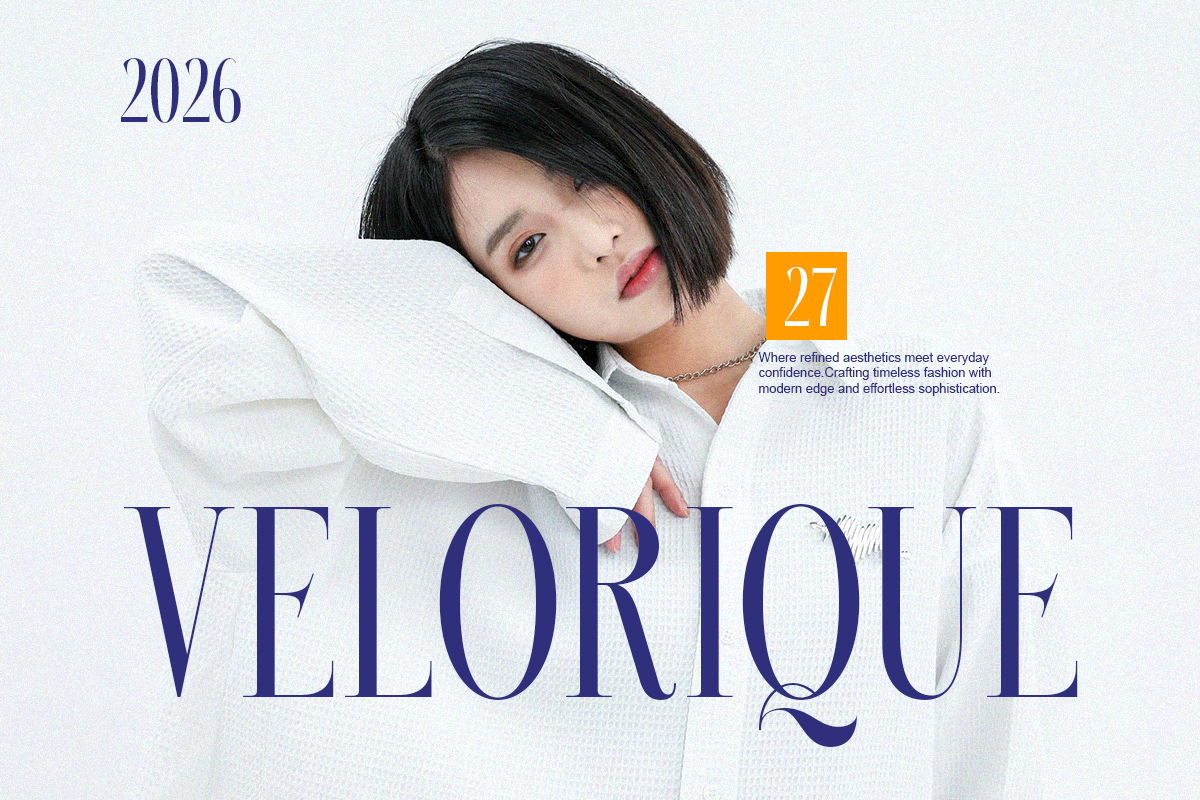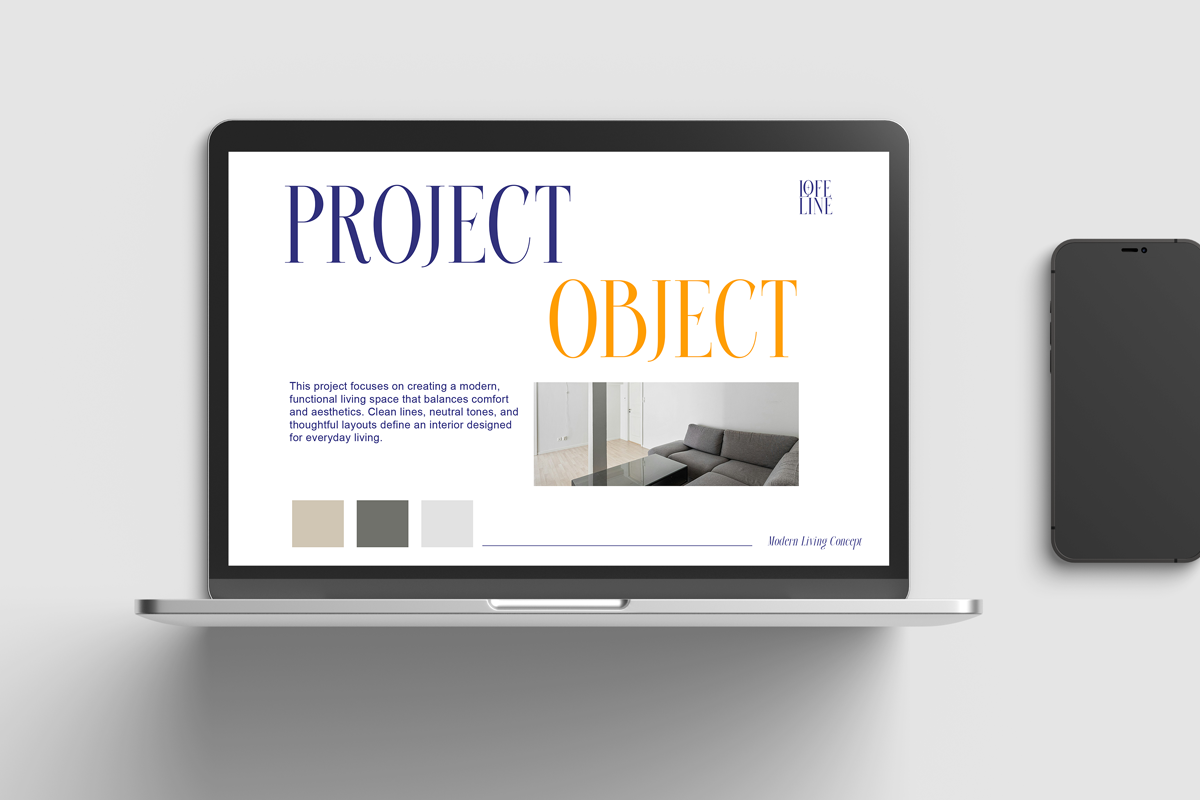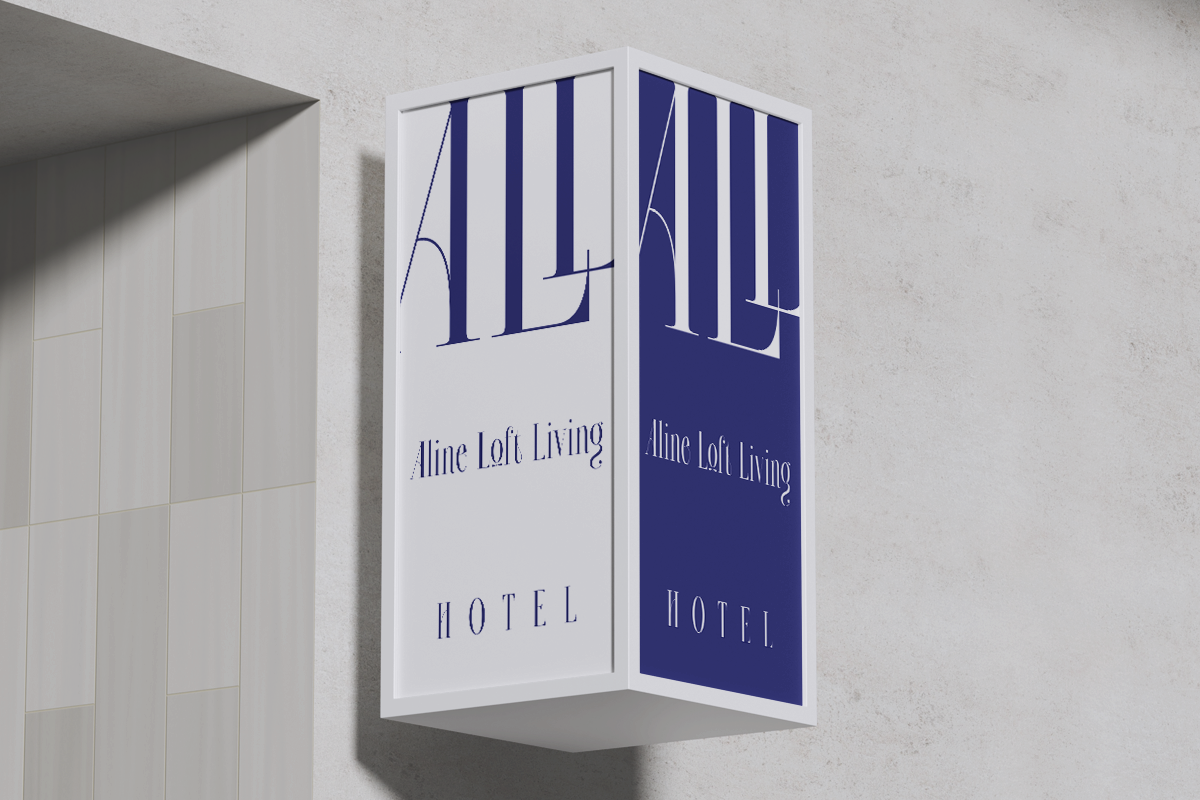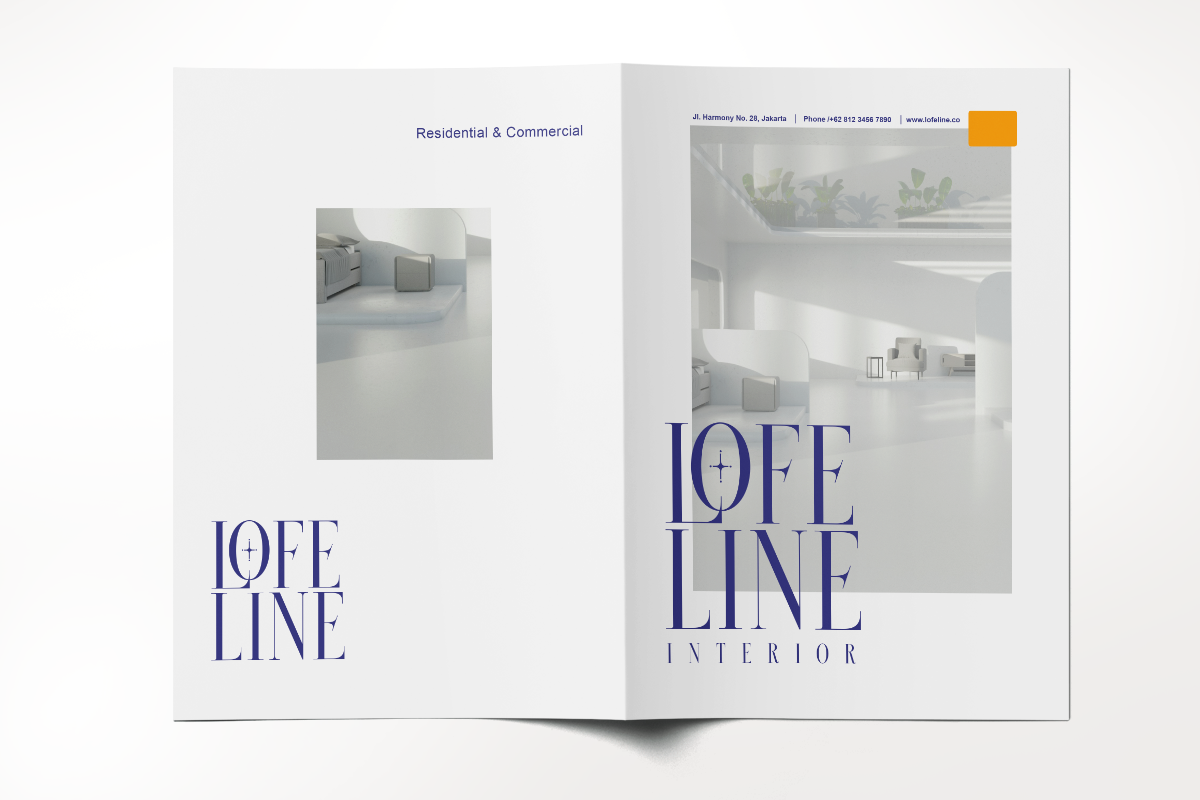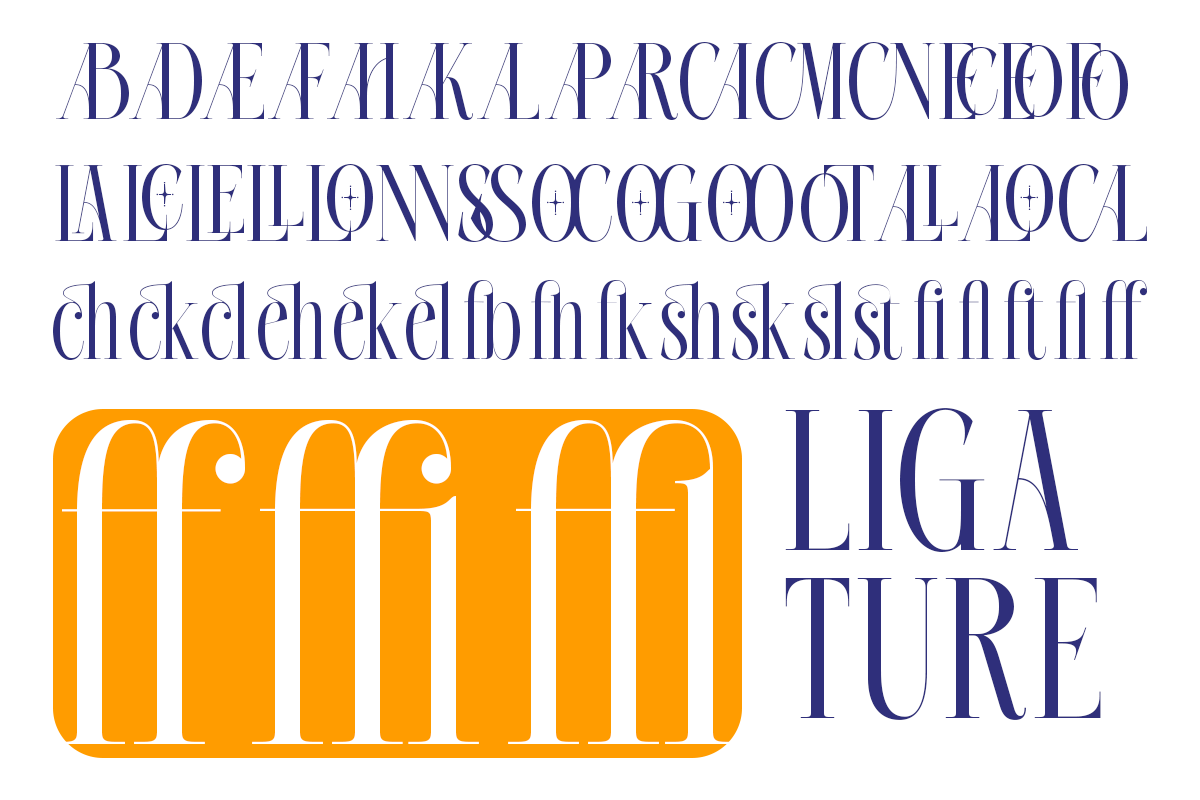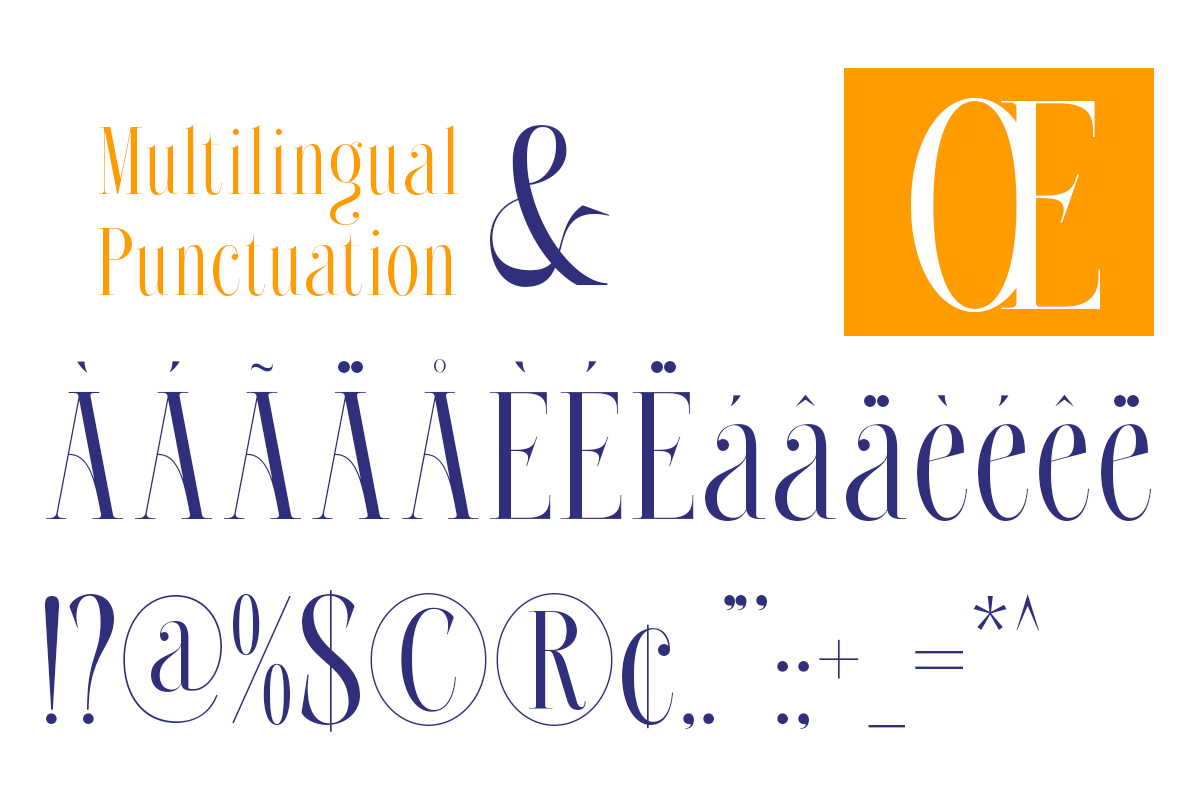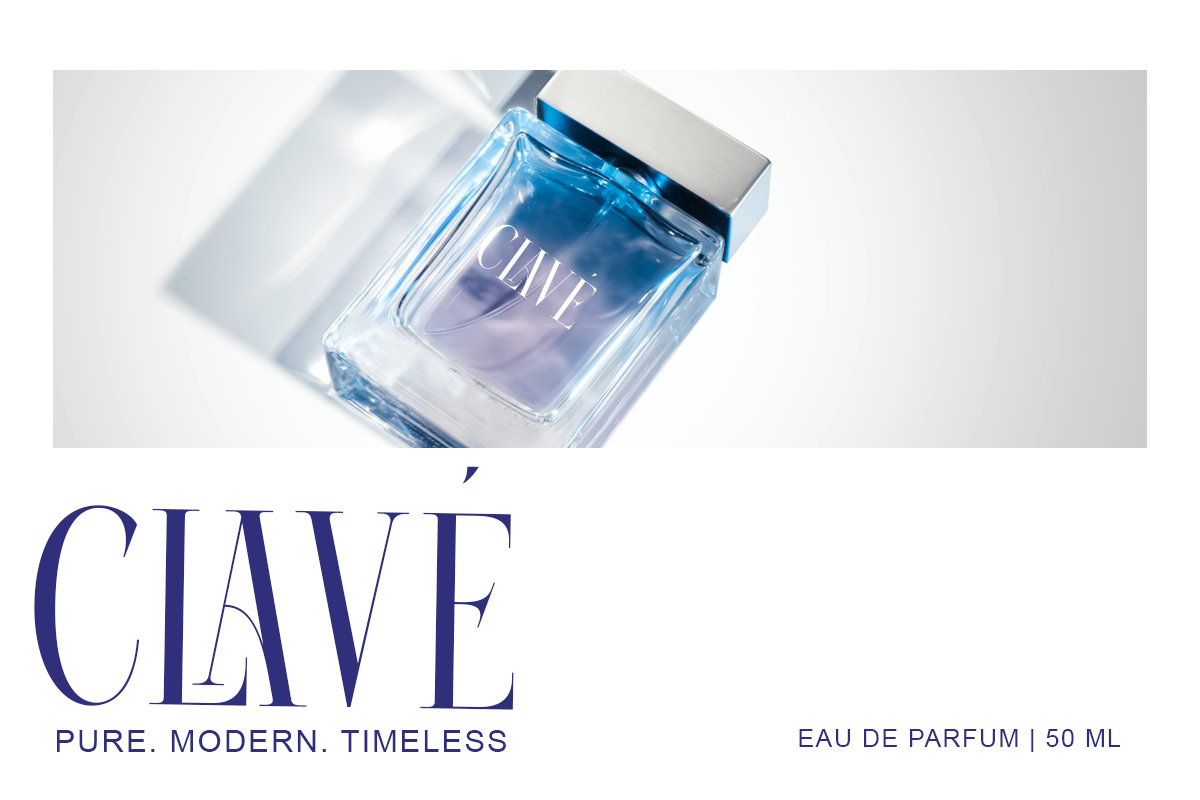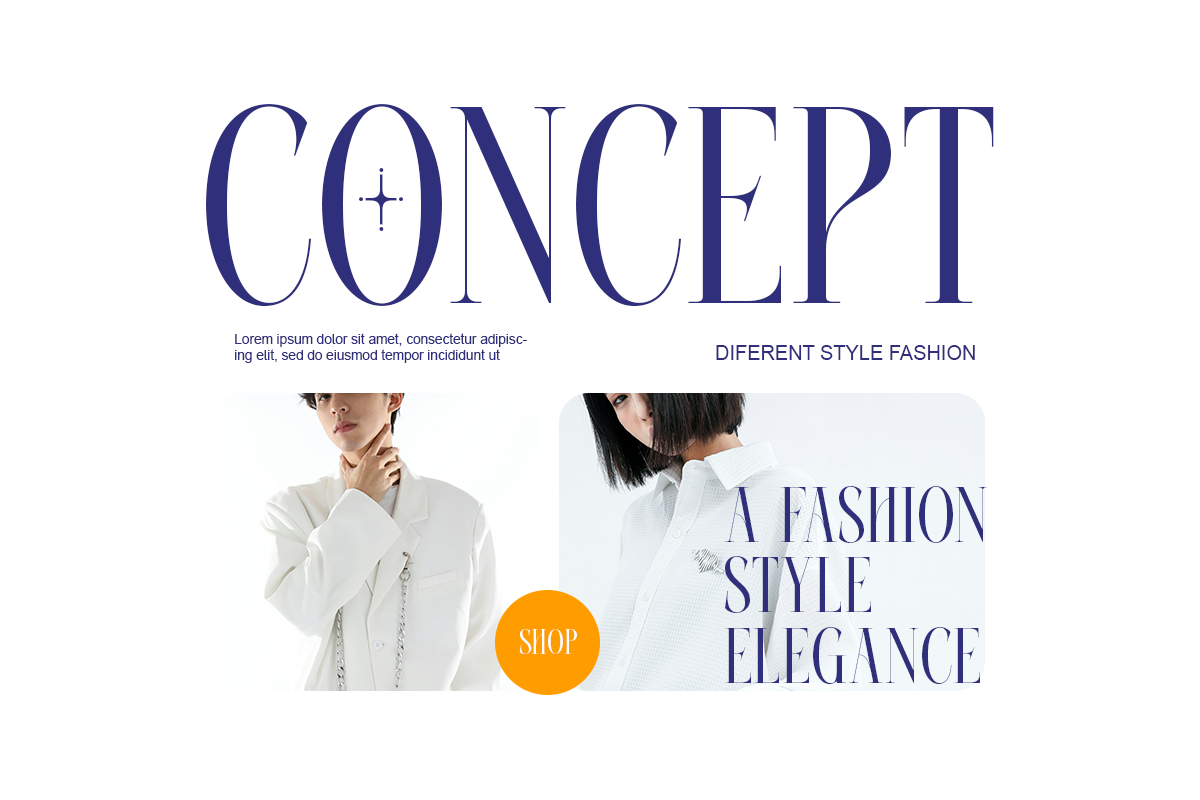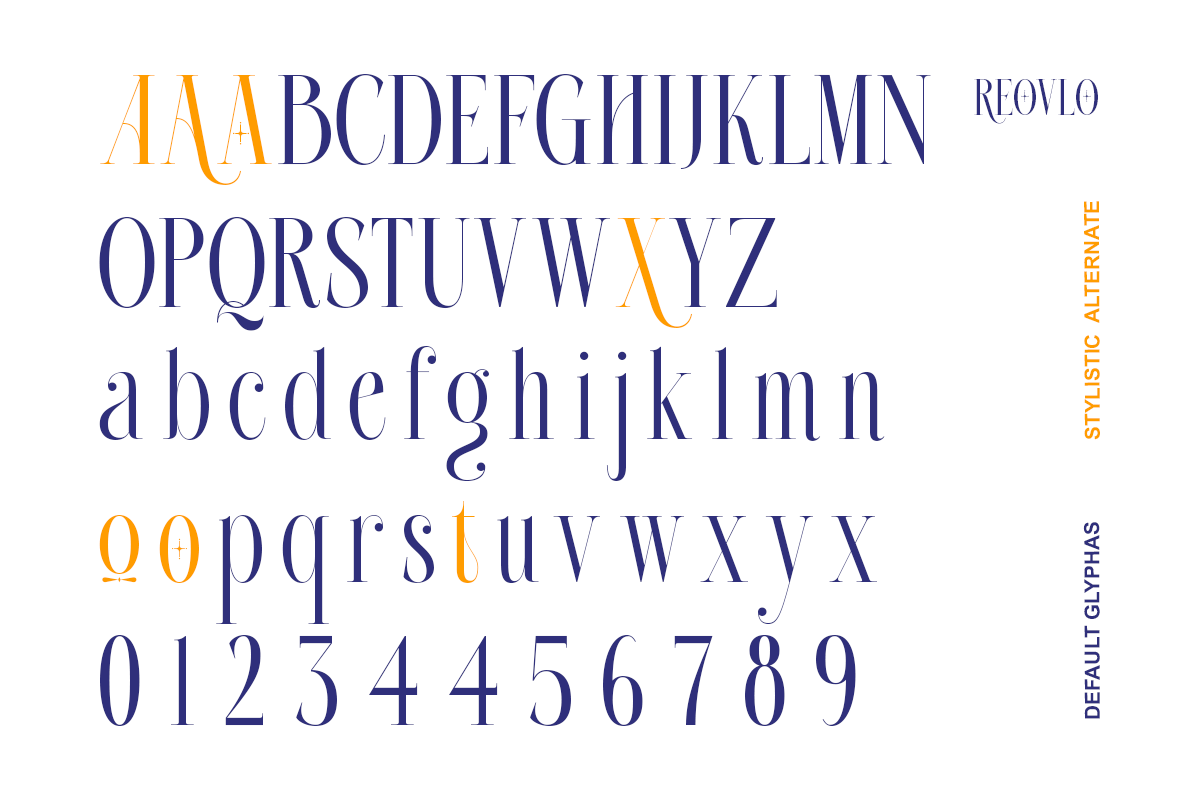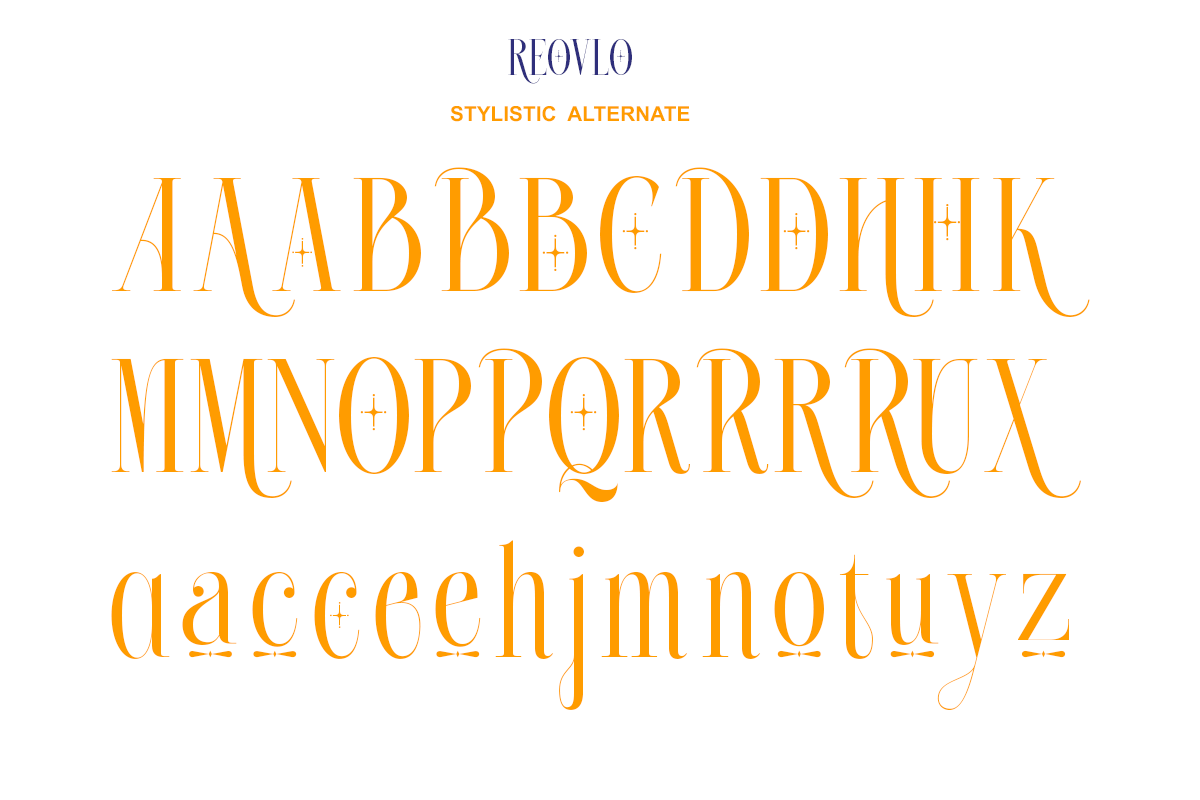
Roelvo - Clean Elegant Display Serif
Roelvo is a modern elegant serif crafted for clean branding and editorial design. Its refined proportions and stylish contrast create a sophisticated typographic tone ideal for premium identity systems.
Perfect for logos, magazine layouts, fashion branding, and packaging design, Roelvo delivers modern luxury with timeless serif elegance.
Designed for designers seeking minimal yet classy display typography.
- Regular & Italic
- Alternates & ligatures
- Clean display serif structure
- Professional kerning
Perfect For Branding identity, editorial typography, logo design, packaging design, fashion branding, premium layouts.